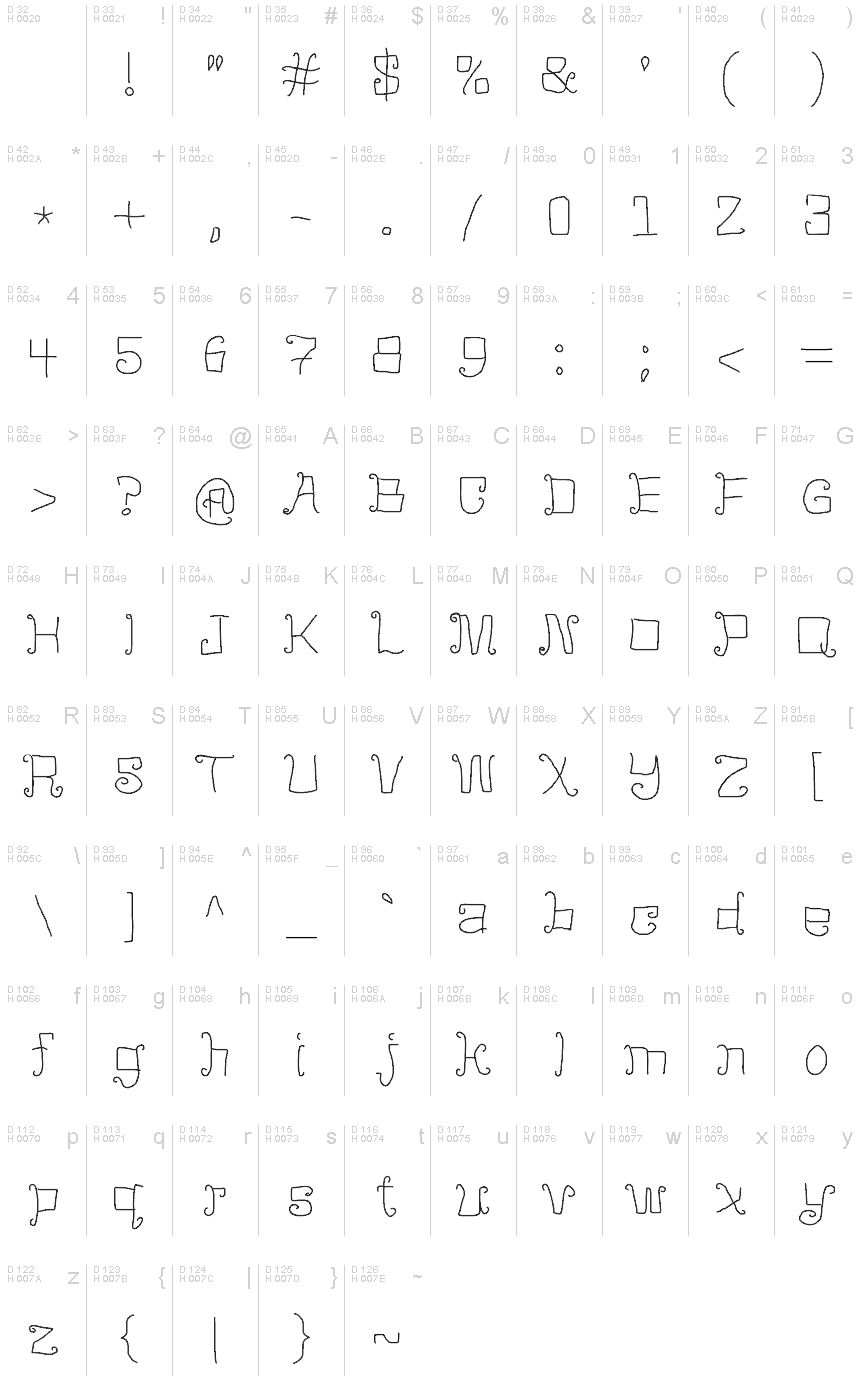
Mango Flavored Jello
Mango Flavored Jello is a playful and whimsical display font that exudes a sense of lightheartedness and fun. Its organic, hand-drawn aesthetic lends a charming, artisanal quality to any design.
The font's distinctive curvy strokes and quirky letter shapes create a delightfully casual vibe, making it well-suited for branding, packaging, and creative projects targeting a youthful or playful audience. The font's light weight and versatility allow it to be used effectively in both large headings and smaller typographic elements.
Mango Flavored Jello's vibrant personality can help bring a touch of unique flair to a wide range of design applications.